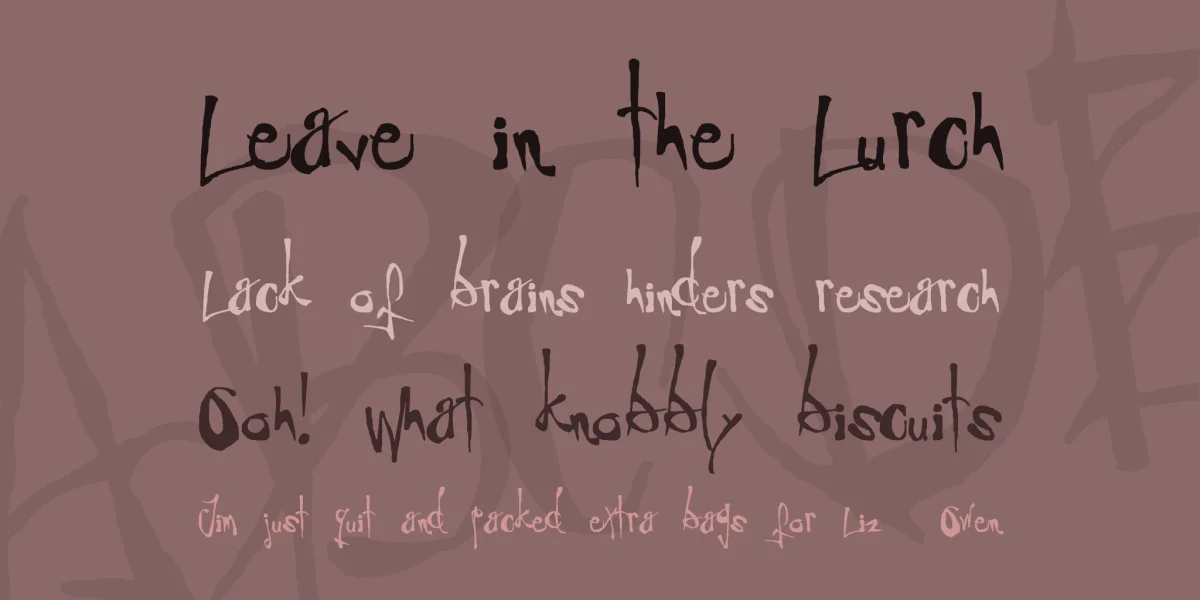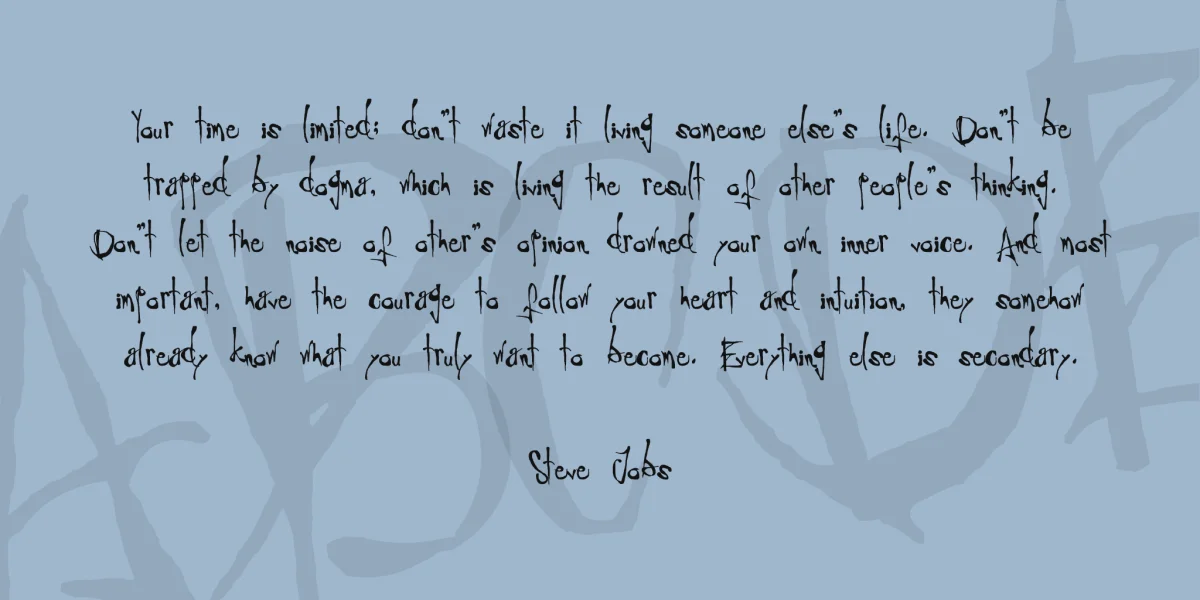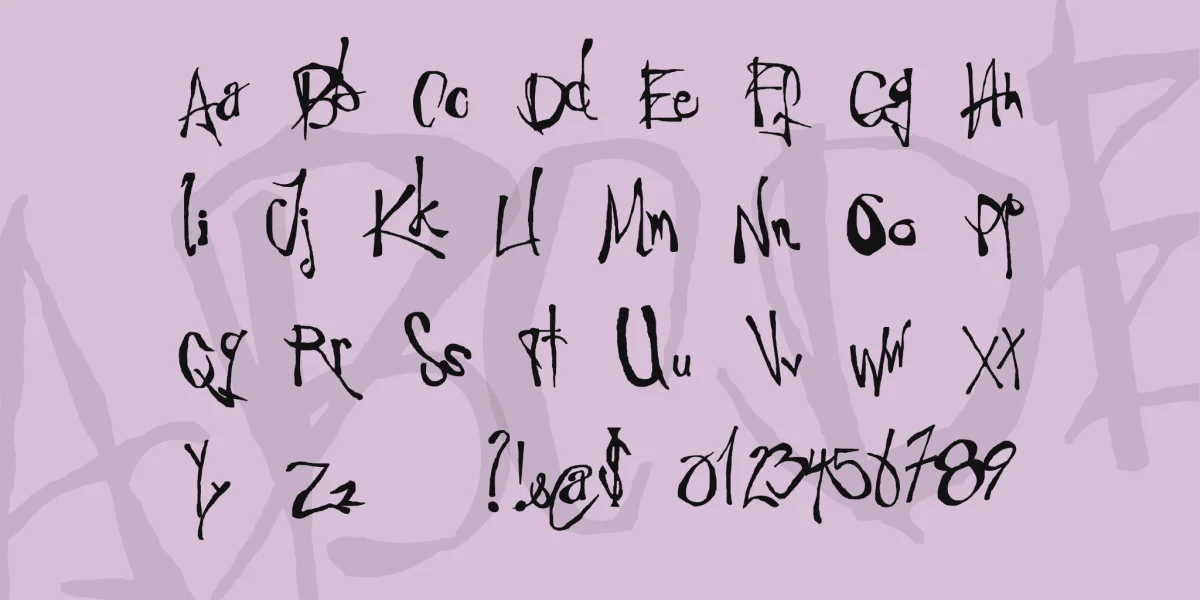
A derivative of the little insect font which is a derivative of the font used on pink floyds the wall .Every day we get farther from the truth.Things are a little shaky.